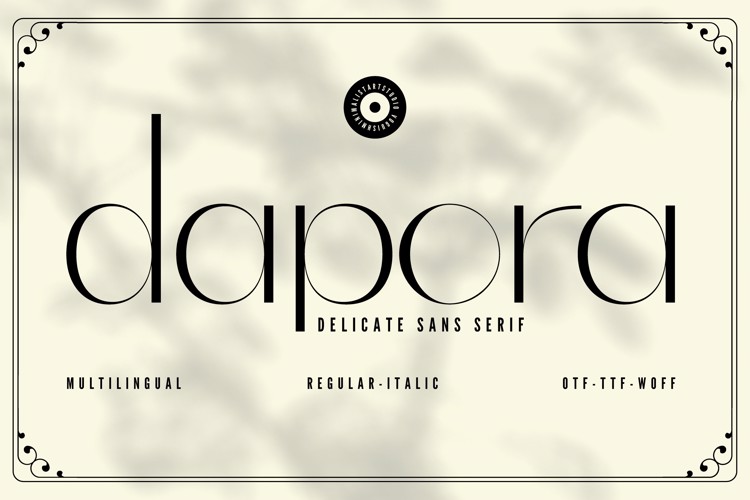
Dapora Font
๐จ Font Name: Dapora by Minimalist Art Studio
๐จ Font Description: Dapora is a delicate sans serif with multilingual supportโperfect for minimalist branding, lifestyle packaging, and editorial elegance.